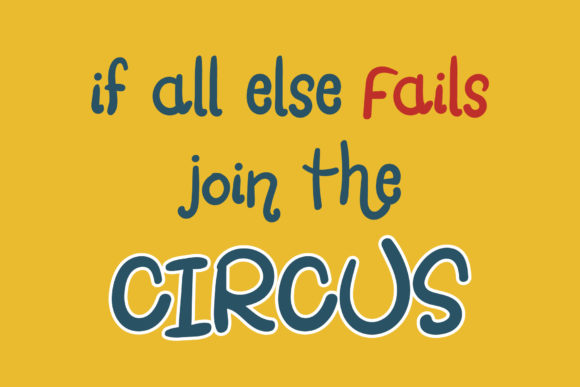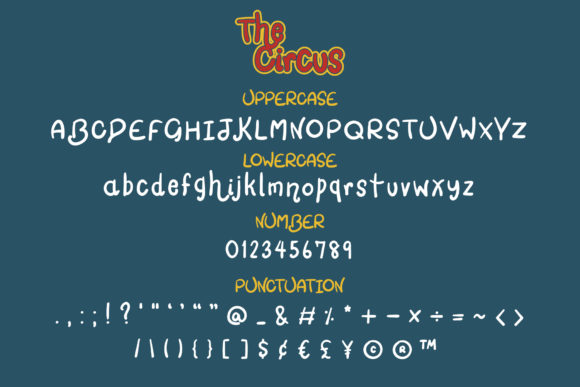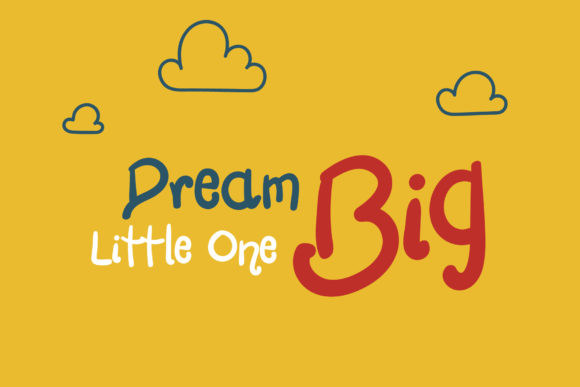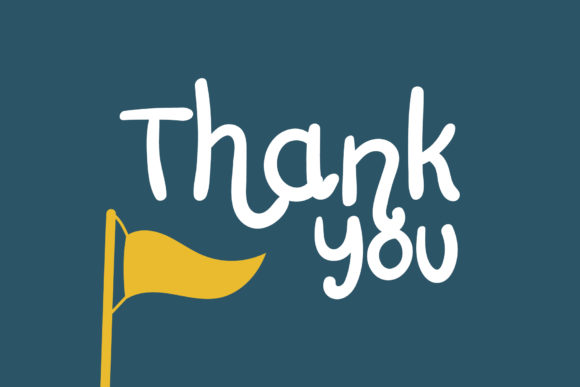
The Circus Font
About The Circus Font
The Circus is a playful, friendly handwritten font, that will embellish any of the design projects you wish to create! Its quirky, relaxed style makes it incredibly versatile, allowing you to use it to a variety of projects. Enrich your library of fonts with this awesome font!